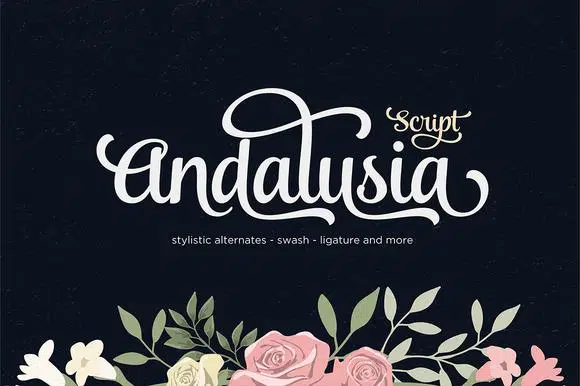
Andalusia – Beauty Brush Script
Andalusia Beauty Brush Script is perfect for Spanish-inspired beauty branding, flamenco event posters, Mediterranean resort marketing, passionate wedding invitations, luxury cosmetic packaging, Iberian cultural projects, romantic Spanish restaurant menus, artistic fashion labels, passionate dance studio branding, and sultry lifestyle campaigns.
Andalusia Beauty Brush Script is exciting because it captures the passionate spirit and sensual beauty of Spanish culture through flowing brush strokes that evoke flamenco grace, Mediterranean warmth, and Andalusian romance with irresistible charm. This passionately designed typeface combines traditional Spanish calligraphic artistry with contemporary brush script elegance, making it perfect for brands that want to communicate Latin passion, cultural sophistication, and sensual beauty.
The Andalusia Beauty Brush Script family includes flowing brush weights with Spanish-inspired character styling, featuring passionate decorative elements and Mediterranean flourishes. The font showcases flamenco-influenced design details, Iberian proportions, and romantic Spanish characteristics that create a comprehensive typographic system for passionate and culturally-inspired applications.
The Mediterranean sophistication of Andalusia Beauty Brush Script makes it an invaluable resource for beauty professionals, luxury hospitality brands, and cultural organizations that need typography capable of communicating Spanish elegance and passionate authenticity. The font's sensual character helps establish immediate connections with audiences seeking sophisticated Latin experiences and authentic Mediterranean luxury.
Beauty salons, Spanish restaurants, and luxury travel companies consistently choose Andalusia Beauty Brush Script for its ability to convey Spanish passion and Mediterranean sophistication through typography. The font excels in applications where establishing cultural credibility and passionate appeal are essential to brand positioning, making it particularly effective for beauty services, hospitality venues, and luxury brands targeting culturally sophisticated consumers.
This font's comprehensive character set includes Spanish-inspired letterforms, passionate numerals, Mediterranean punctuation marks, and cultural symbols that support authentic Andalusian typography composition. The consistent passionate styling maintains the Spanish cultural theme throughout all characters while ensuring professional readability across all beauty and Mediterranean design projects requiring Andalusia Beauty Brush Script Free Download functionality.